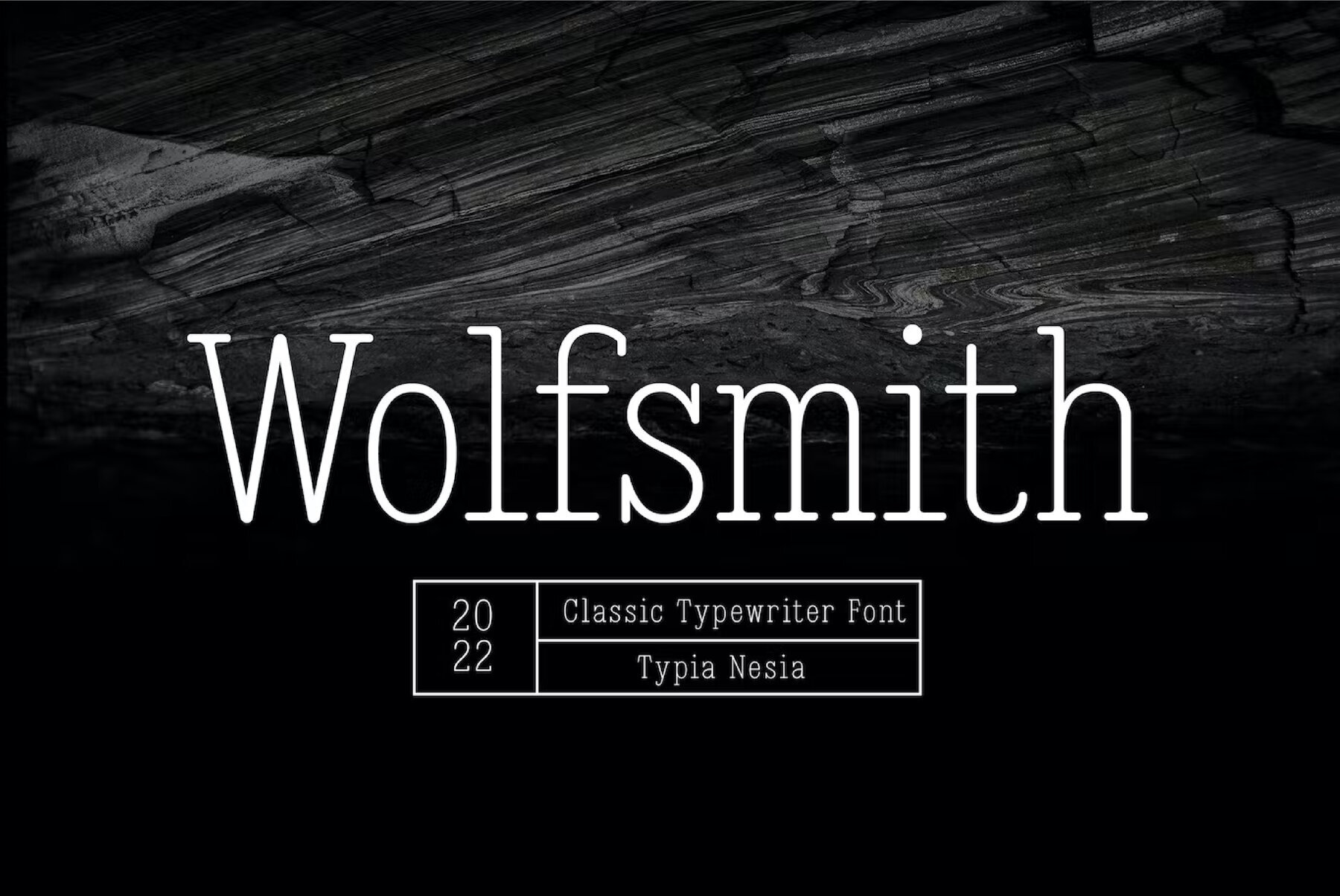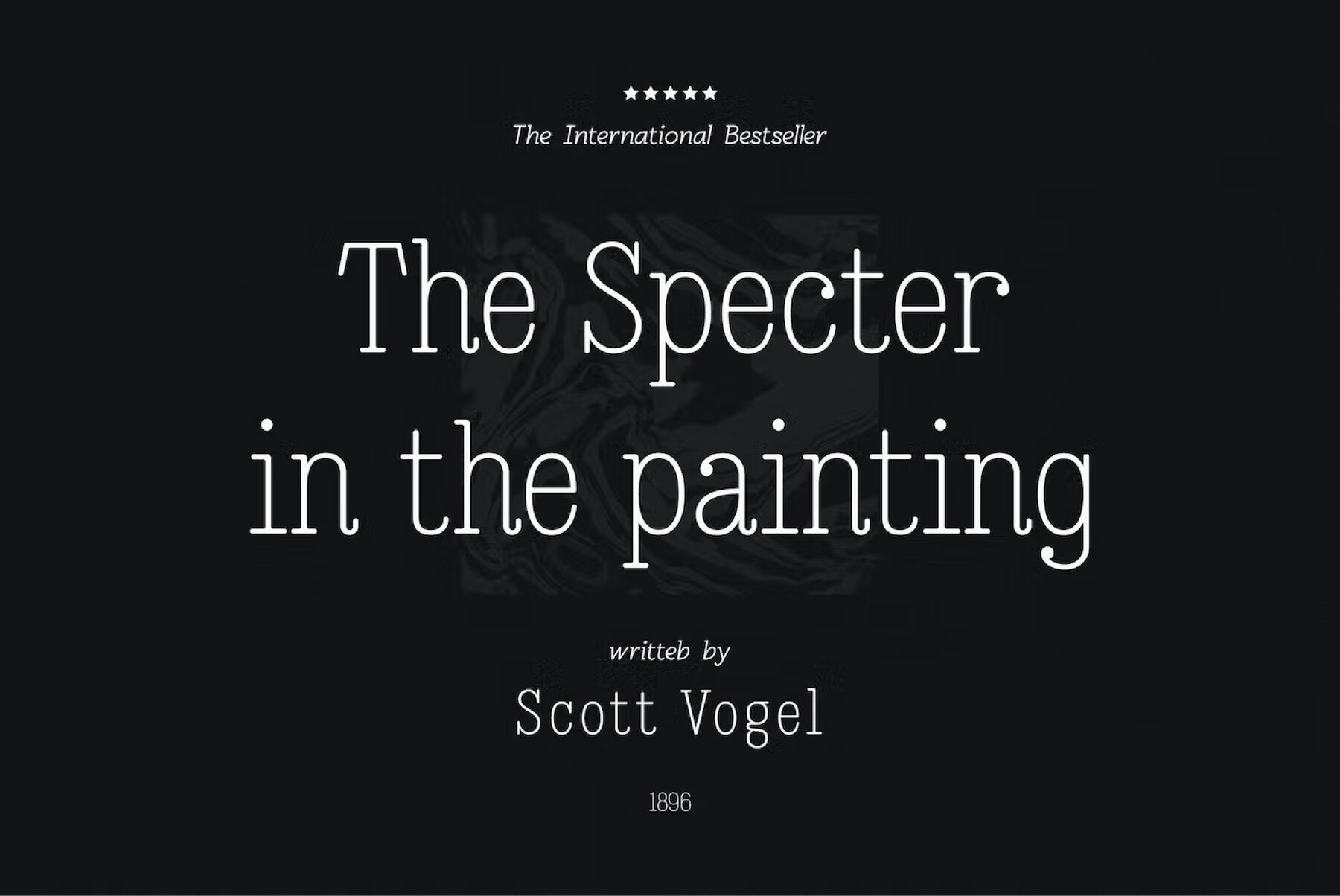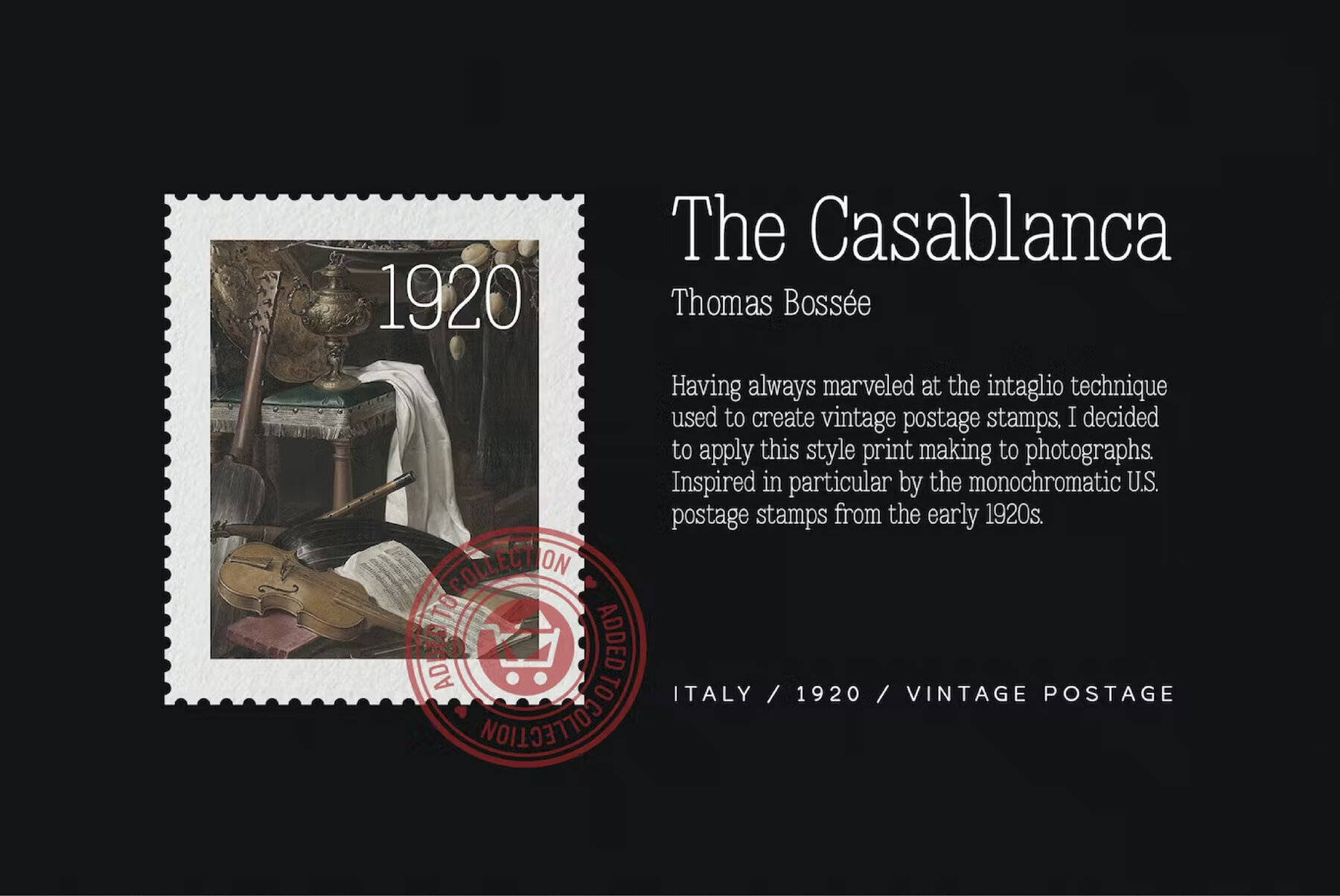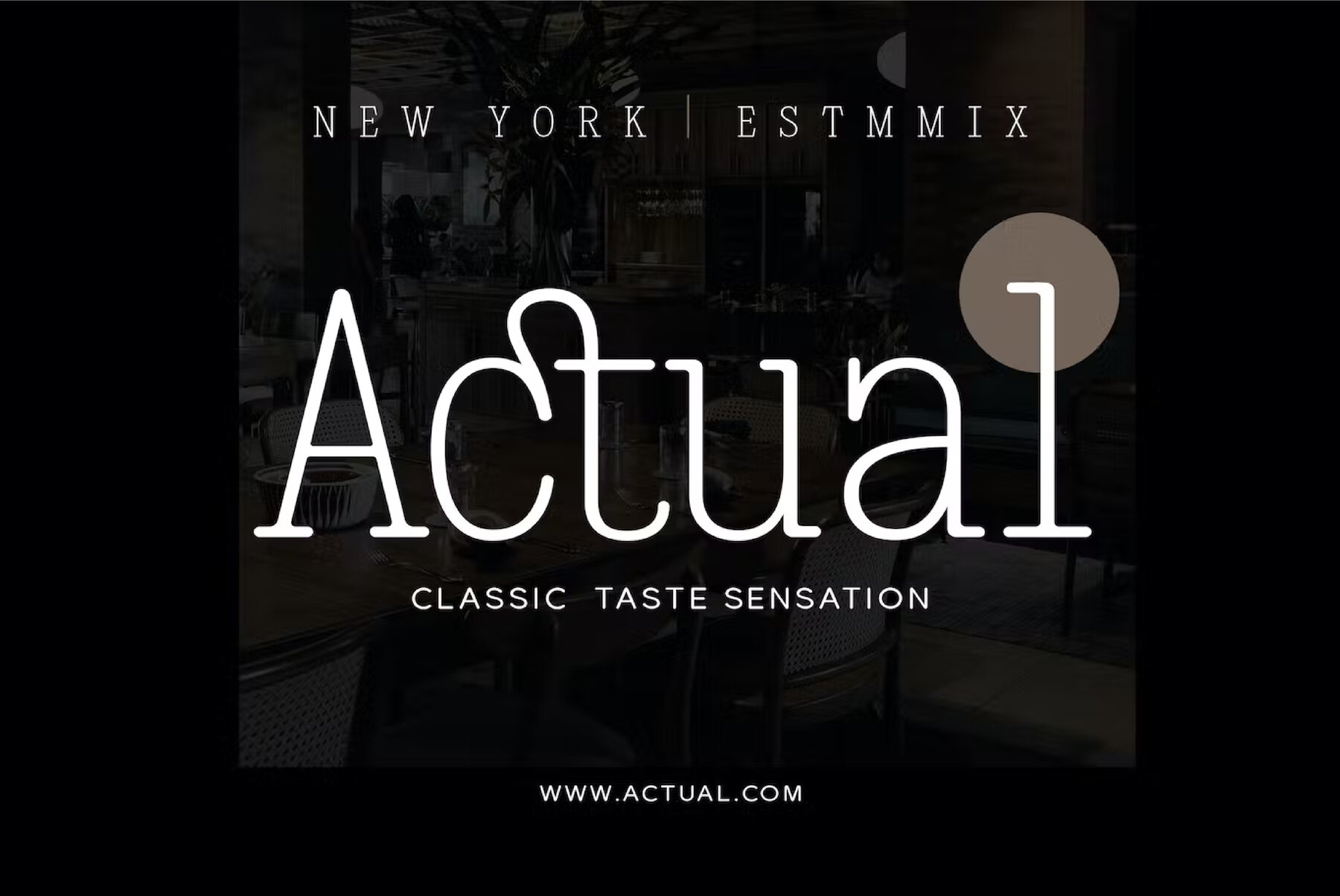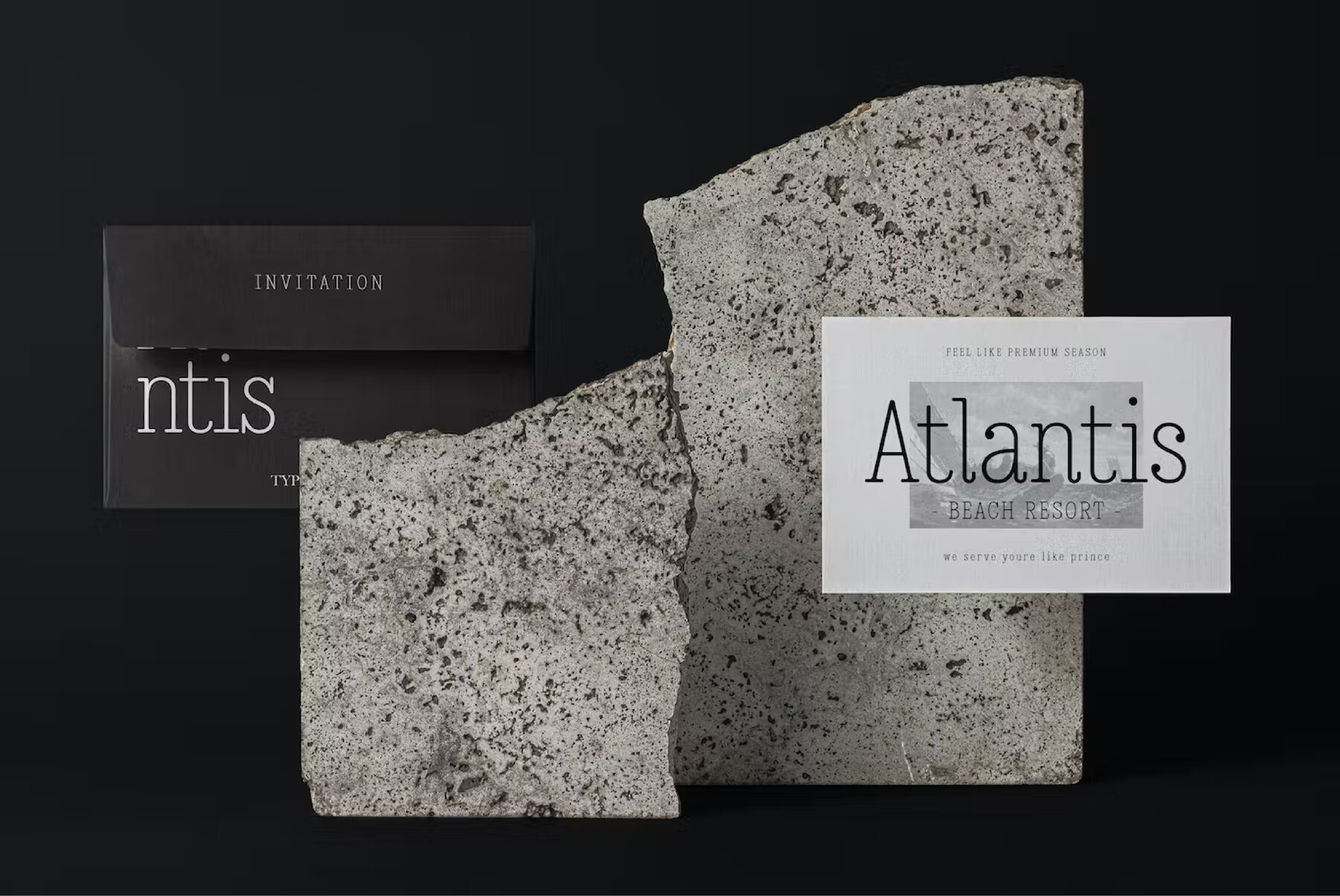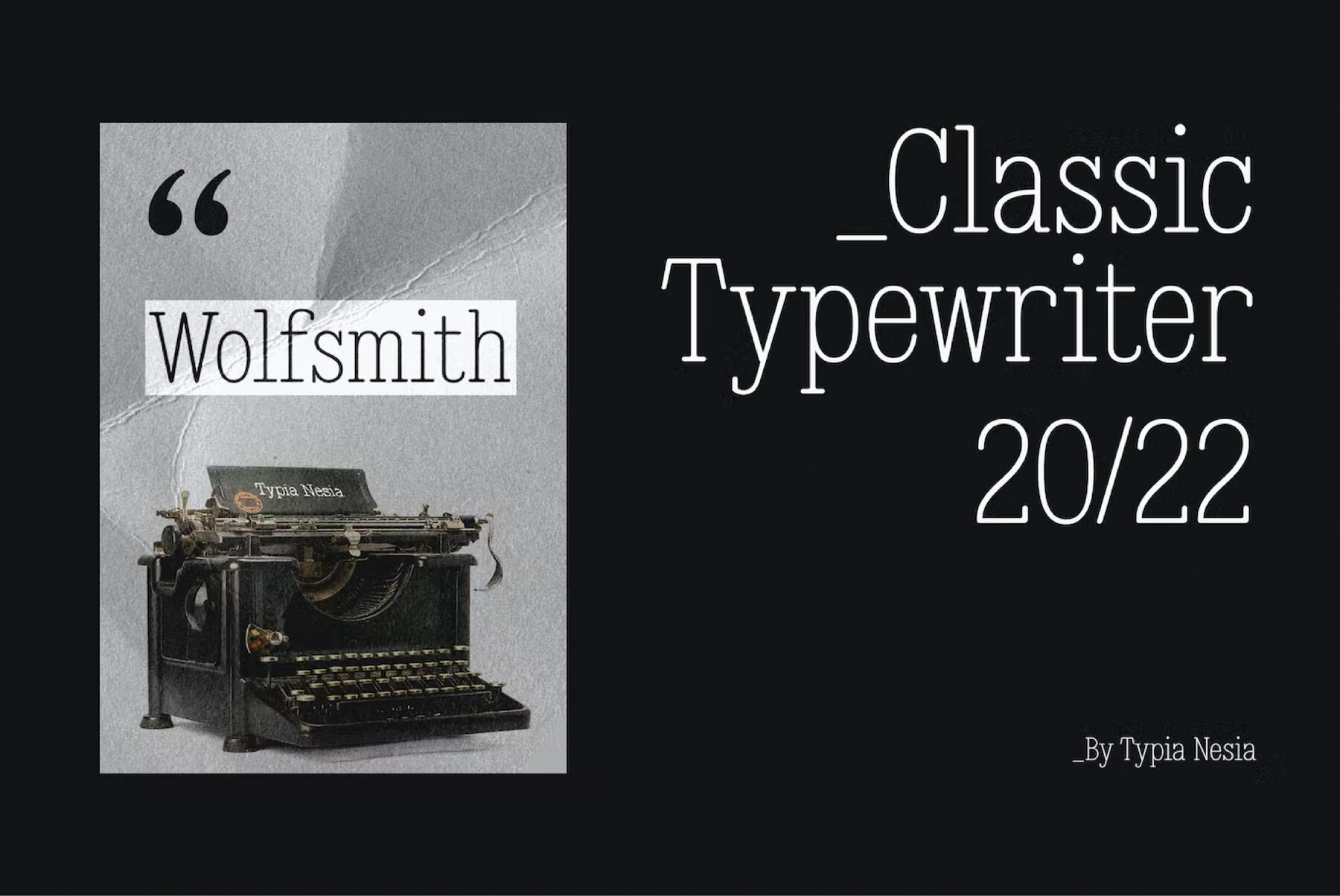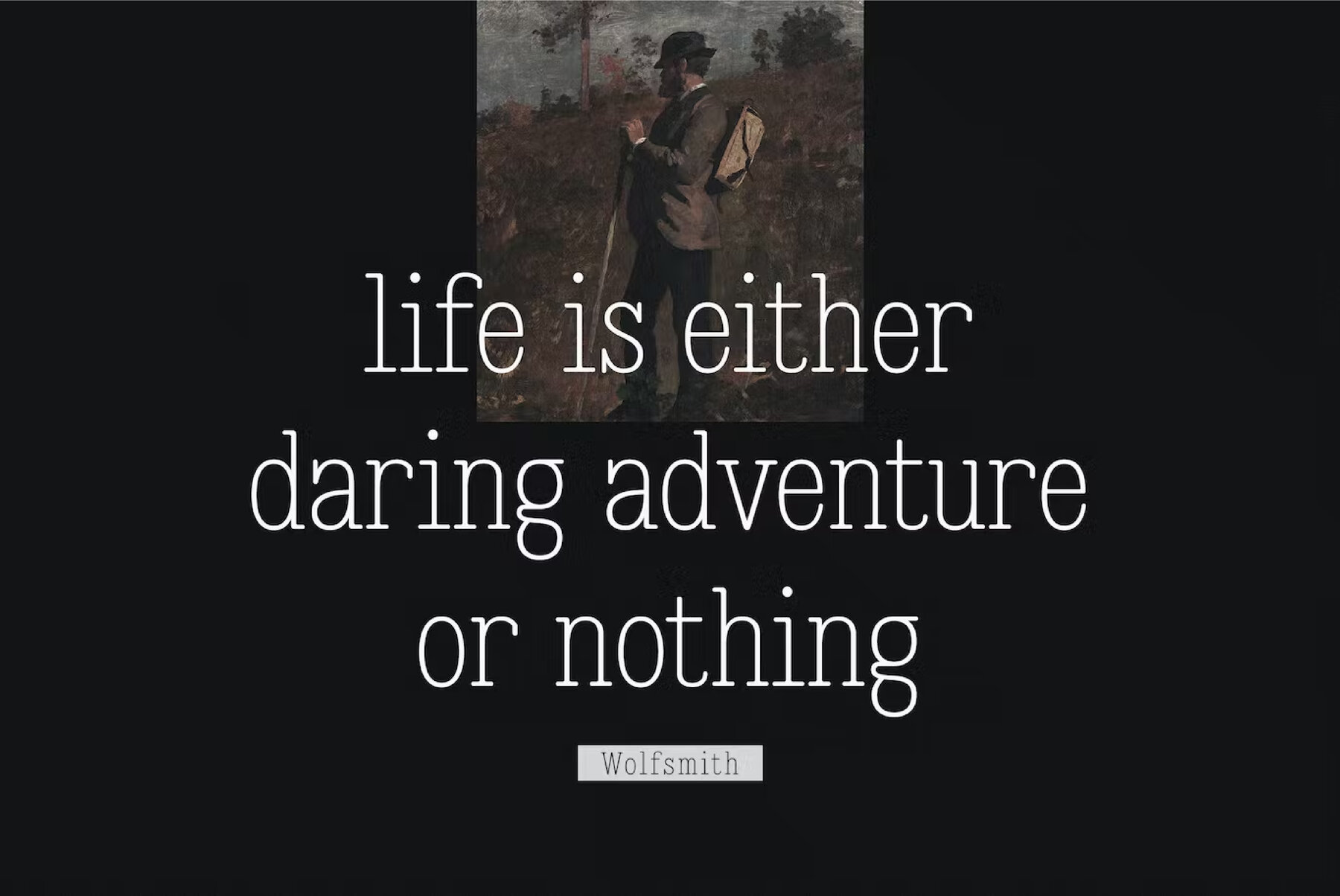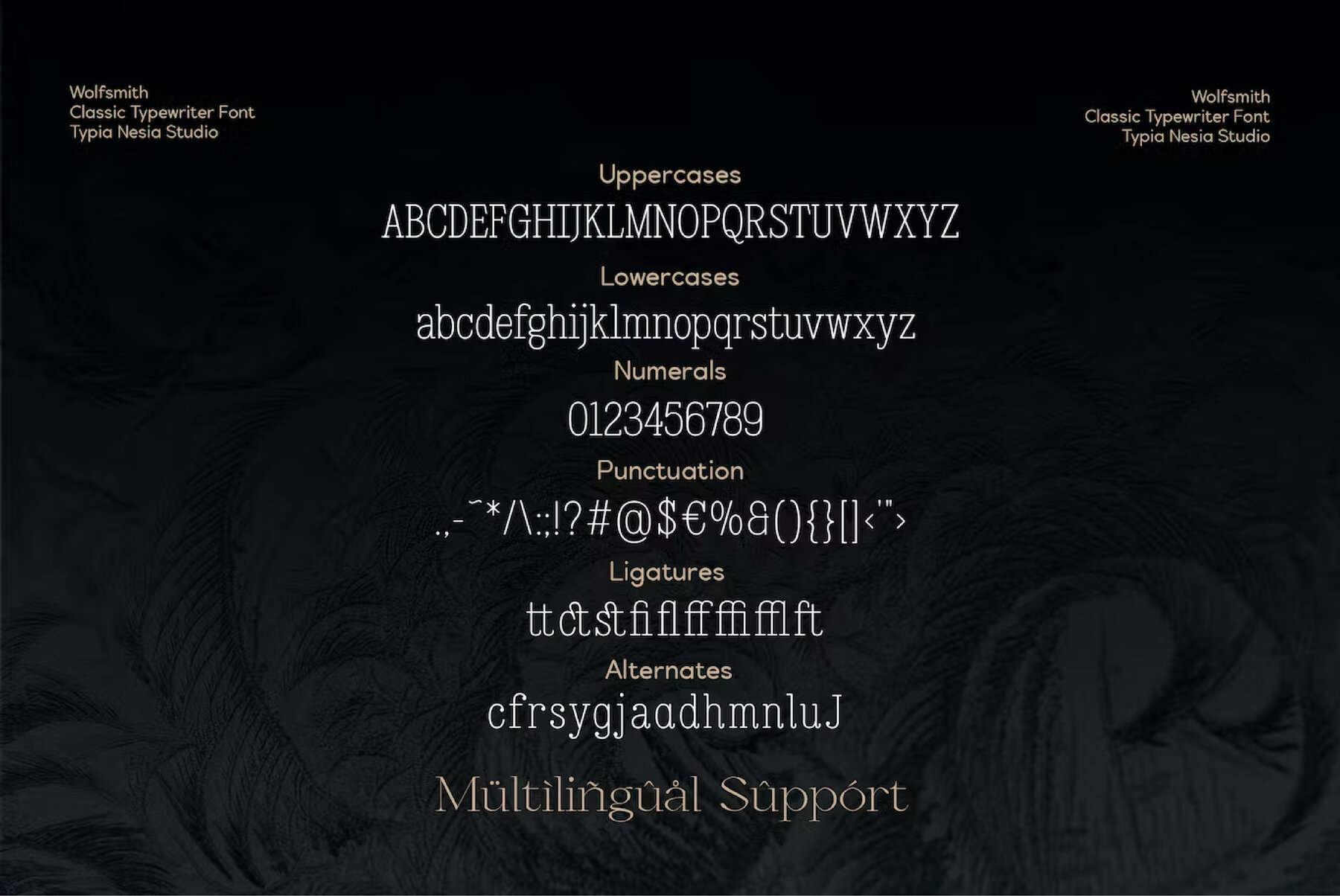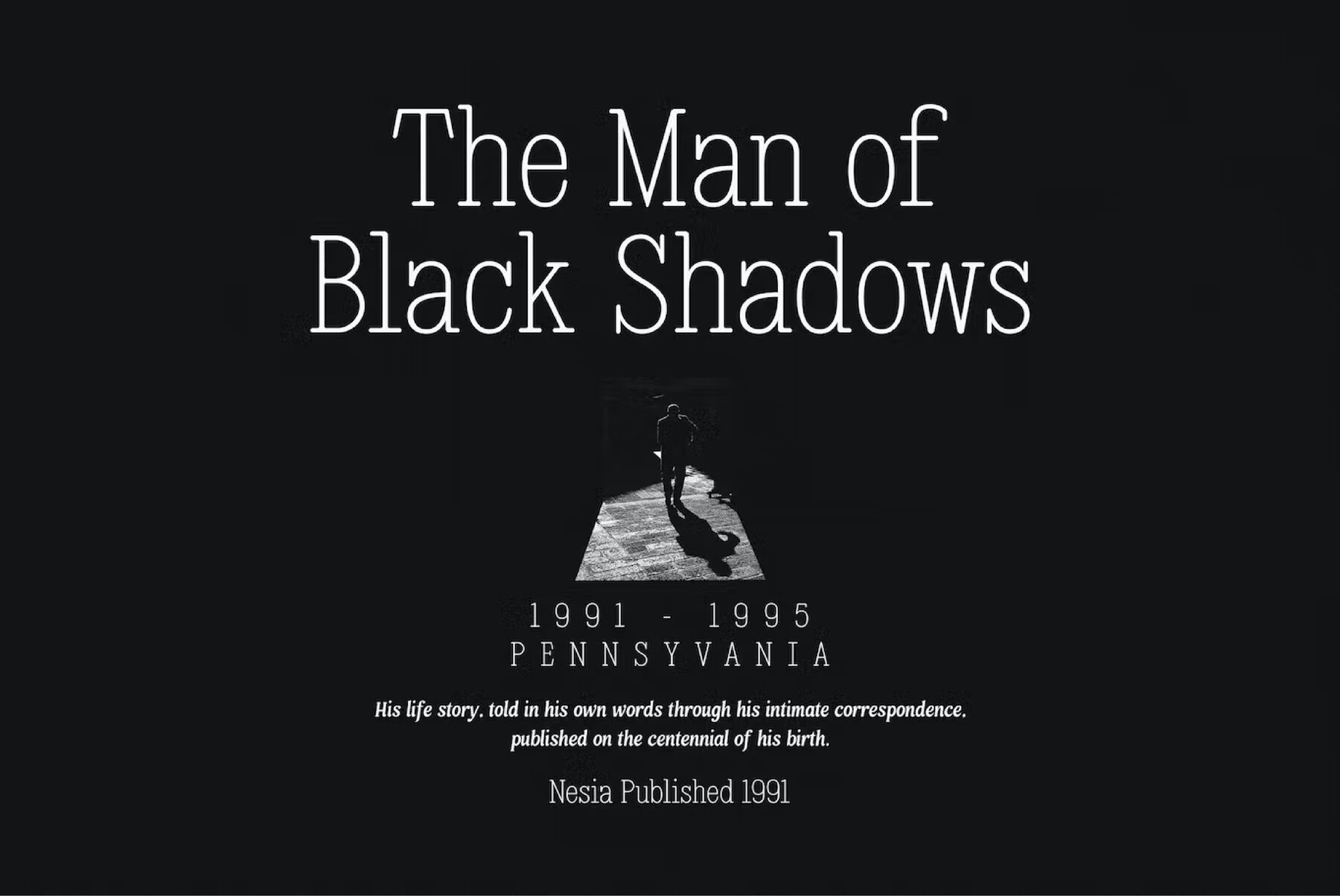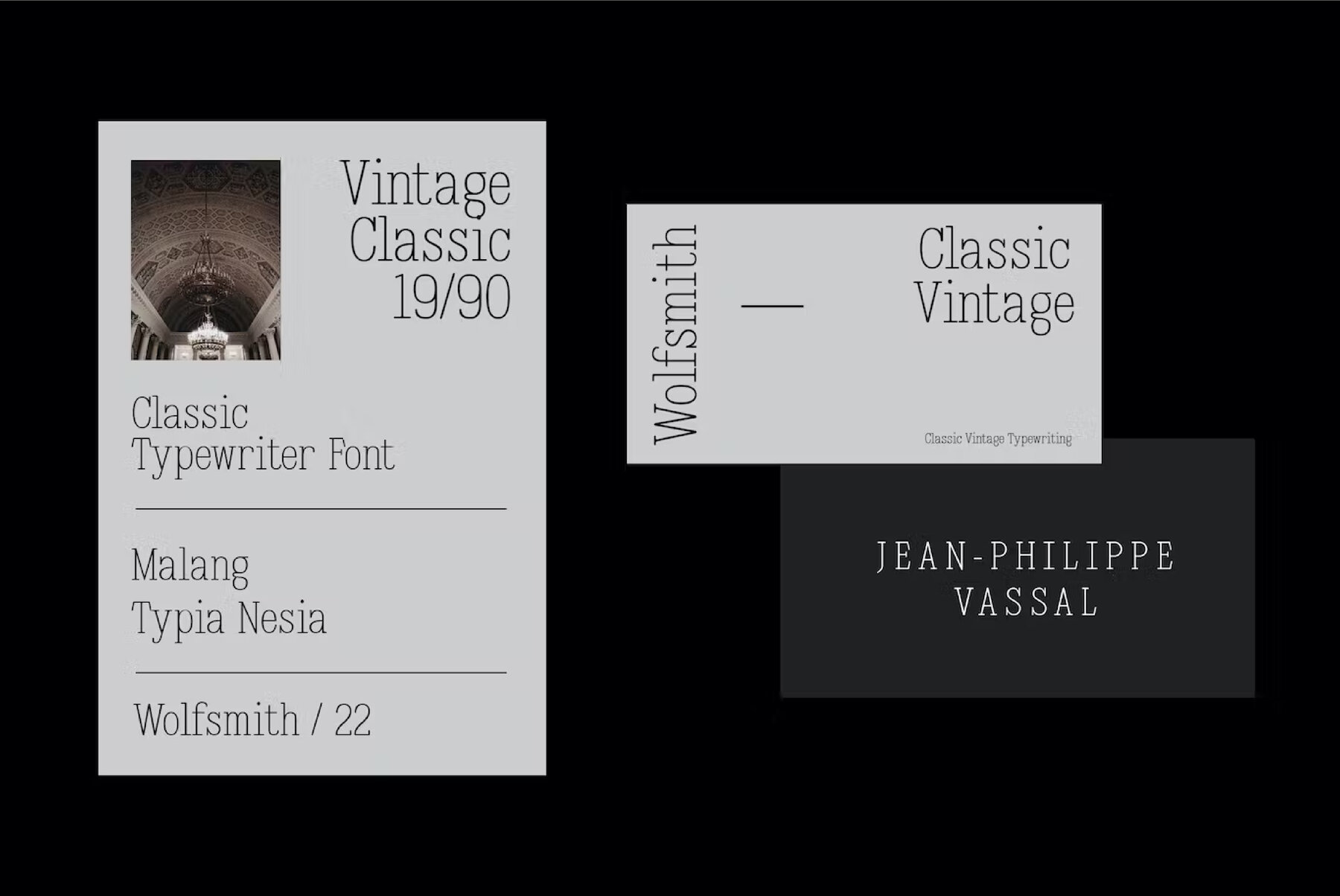
Wolfsmith Font
Wolfsmith Regular
Step back in time with Wolfsmith Typewriter font, a vintage-inspired typeface that will add a touch of classic charm to any project. Perfect for creating logos, branding, editorial designs, magazines, fashion promotions, wedding planner branding, stationery, blogs, advertisements, wedding invitations, art quotes, home decor, book covers, and more, Wolfsmith Typewriter font is a versatile choice for any design project.